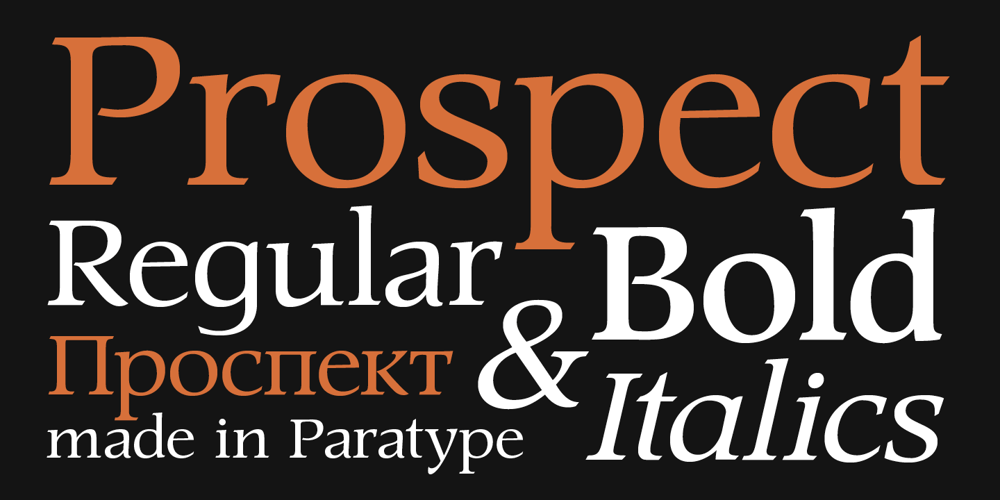
Prospect Font Family was designed by Natalia Vasilyeva and published by ParaType. Prospect contains 4 styles and family package options. An original serif typeface family designed by Natalia Vasilyeva between 1997 and 2001, licensed by Paratype. PT Prospect features wide proportions and distinctive, free-flowing letterforms. Its serifs are characterized by slanted edges, reflecting the influence of the designer’s hand lettering. Ideal for titling and display compositions.If you need font files in different formats or would like to try out this font, just reach out to us at info@paratype.net, and we’ll be happy to assist.